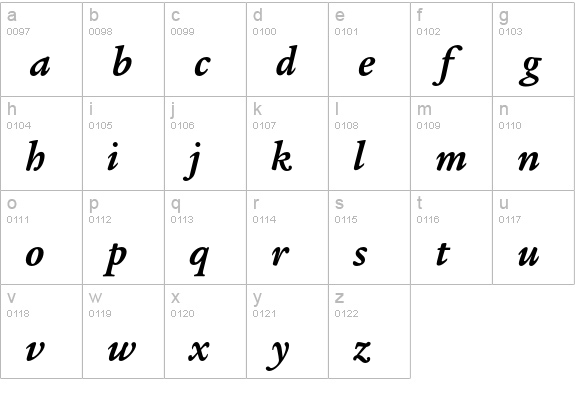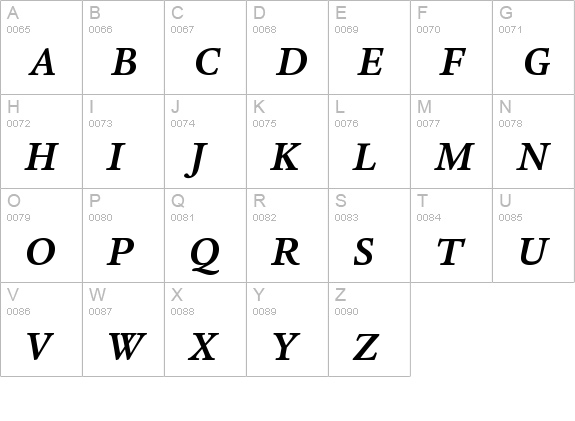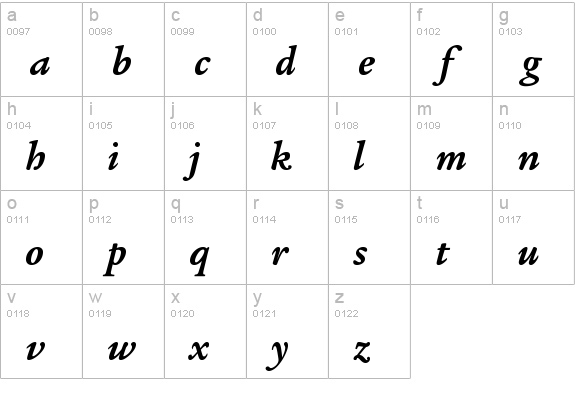
LegacySerifEF-BoldItalic is a stunning and sophisticated font that exudes elegance and refinement. With its bold and italicized design, this typeface is perfect for adding a touch of class to any project. Whether you are creating stylish invitations, designing luxurious branding materials, or crafting a captivating logo, LegacySerifEF-BoldItalic will effortlessly elevate your work to new heights. This font boasts a timeless quality that is sure to make a lasting impression. Its clean lines and graceful curves create a sense of grace and sophistication, while the bold weight adds a touch of modernity and impact. The italicized style brings a sense of fluidity and movement, lending a dynamic touch to your typography. One of the most remarkable features of LegacySerifEF-BoldItalic is that it is available to download for free at FontsMarket.com. This means that you can easily access and utilize this exceptional font without any cost. FontsMarket.com is a reputable online platform that offers a vast collection of high-quality fonts, and LegacySerifEF-BoldItalic is no exception. By offering this font for free, FontsMarket.com allows designers, creatives, and enthusiasts to explore and experiment with this remarkable typeface without any barriers. Add a touch of sophistication and elegance to your designs with LegacySerifEF-BoldItalic. Download it freely at FontsMarket.com and unlock endless possibilities for your creative projects. Whether you are designing for print or digital platforms, this font will undoubtedly make a lasting impact and help you create visually stunning and memorable designs.